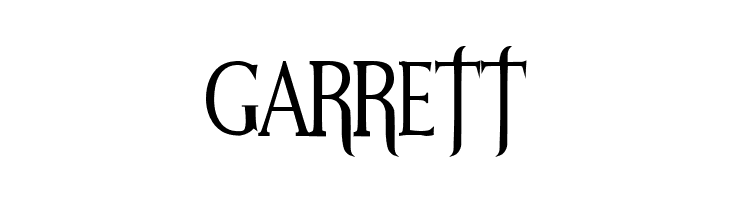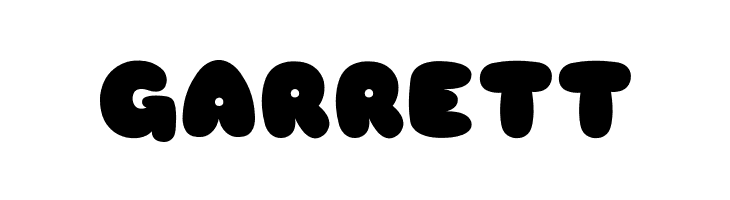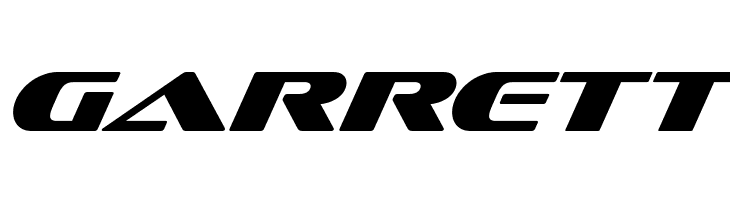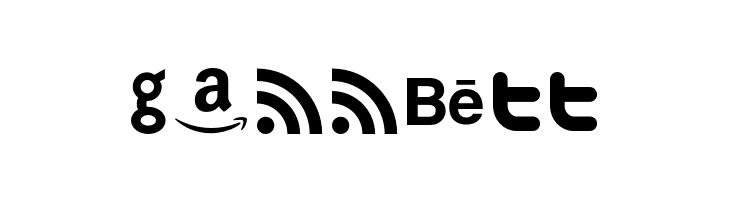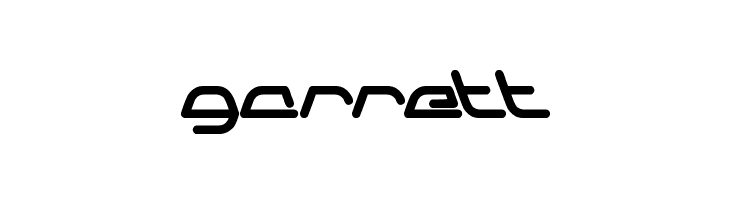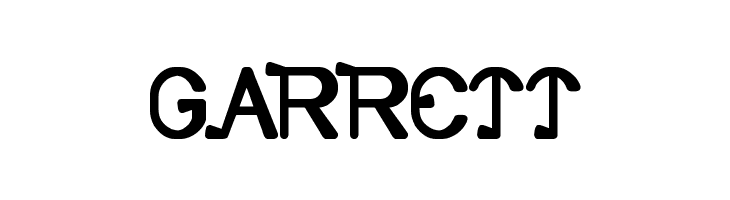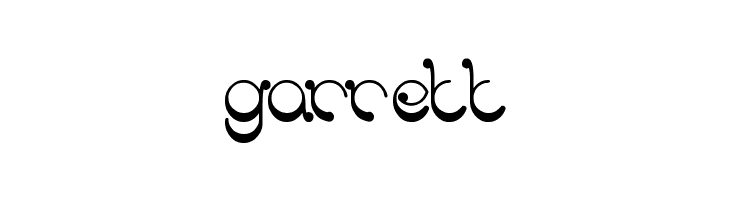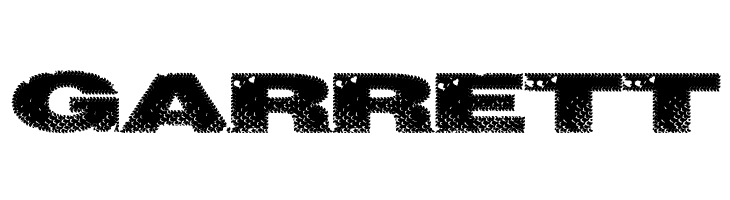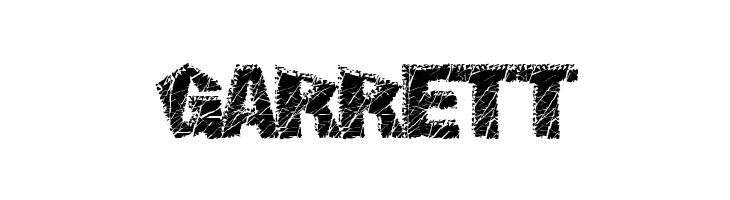
A bold, playful font with a unique filled style and strong decorative elements.
A bold slab serif font with strong, block-like serifs and a modern classic feel.
A bold, distressed font with a grunge texture and rugged, urban style.
A pixelated, monospaced font with a retro digital style.
A bold, slanted font with sharp, angular edges and dynamic energy.
A modern, geometric font with bold, rounded characters and consistent stroke width.
A playful, bubbly font with interconnected, rounded characters.
A playful, bubbly font with rounded, cartoonish letterforms.
A lively, cursive font with fluid, connected strokes and a personal touch.
A jagged, energetic font with a dynamic, smoke-like appearance.
A bold, jagged font with a dynamic, smoky appearance.
A bold, cracked texture font with an edgy, distressed style.
A bold, textured font with a stitched, embroidered appearance.
A modern, geometric font with a monoline, stencil-like design.
A futuristic, geometric font with rounded edges and continuous strokes.
A playful, bold font with rounded, bubbly characters perfect for fun and whimsical designs.
A playful, bold font with rounded, bubbly characters ideal for fun designs.
A playful, informal handwritten font with dynamic strokes.
An elegant and fantasy-inspired serif font with distinctive serifs and graceful curves.
A whimsical, playful font with exaggerated serifs and a hand-drawn feel.
A playful, snow-capped font perfect for winter-themed designs.
A bold, hand-drawn font with a jagged, graffiti-like style.
A playful, bold font with rounded edges and a whimsical style.
A playful, rounded font with a bold and friendly appearance.
A hand-drawn, textured font with dynamic, expressive strokes.
A bold, pixelated font with a geometric, retro digital style.
A sleek, ultra-thin, and elongated font with consistent stroke width.
A bold, decorative font with a double-line, geometric design.